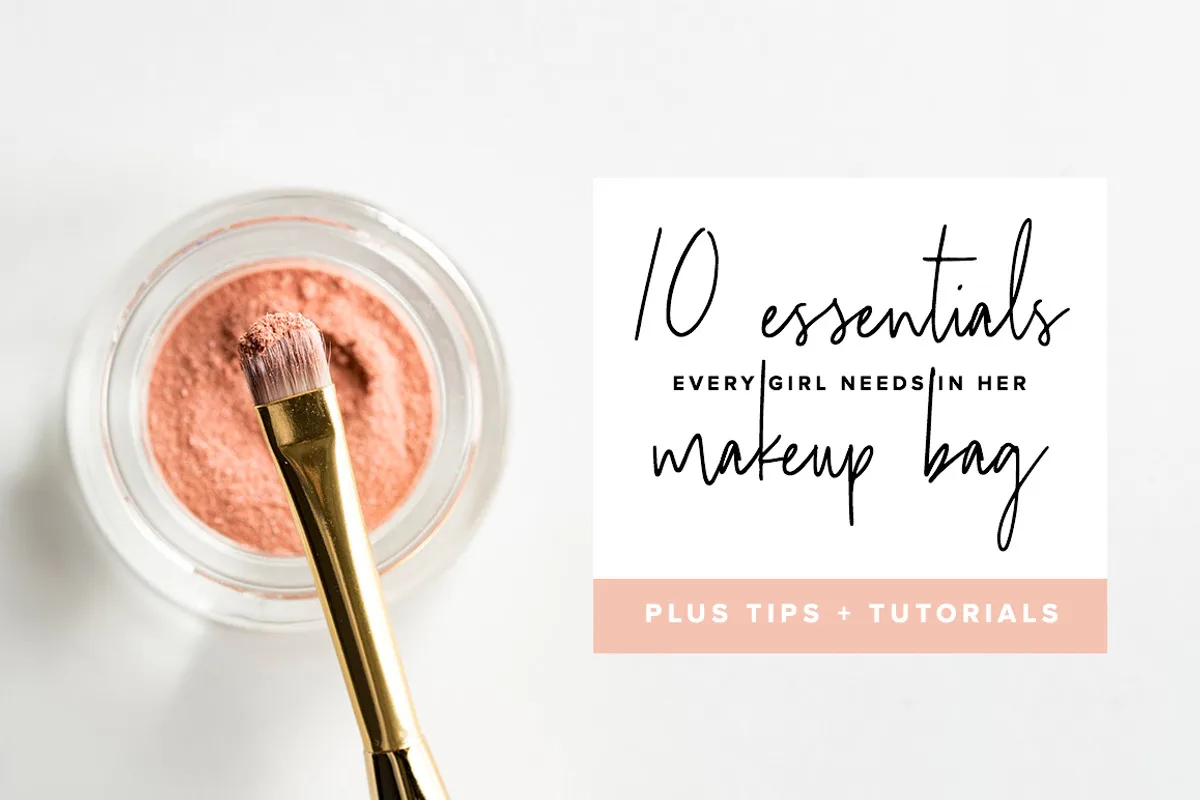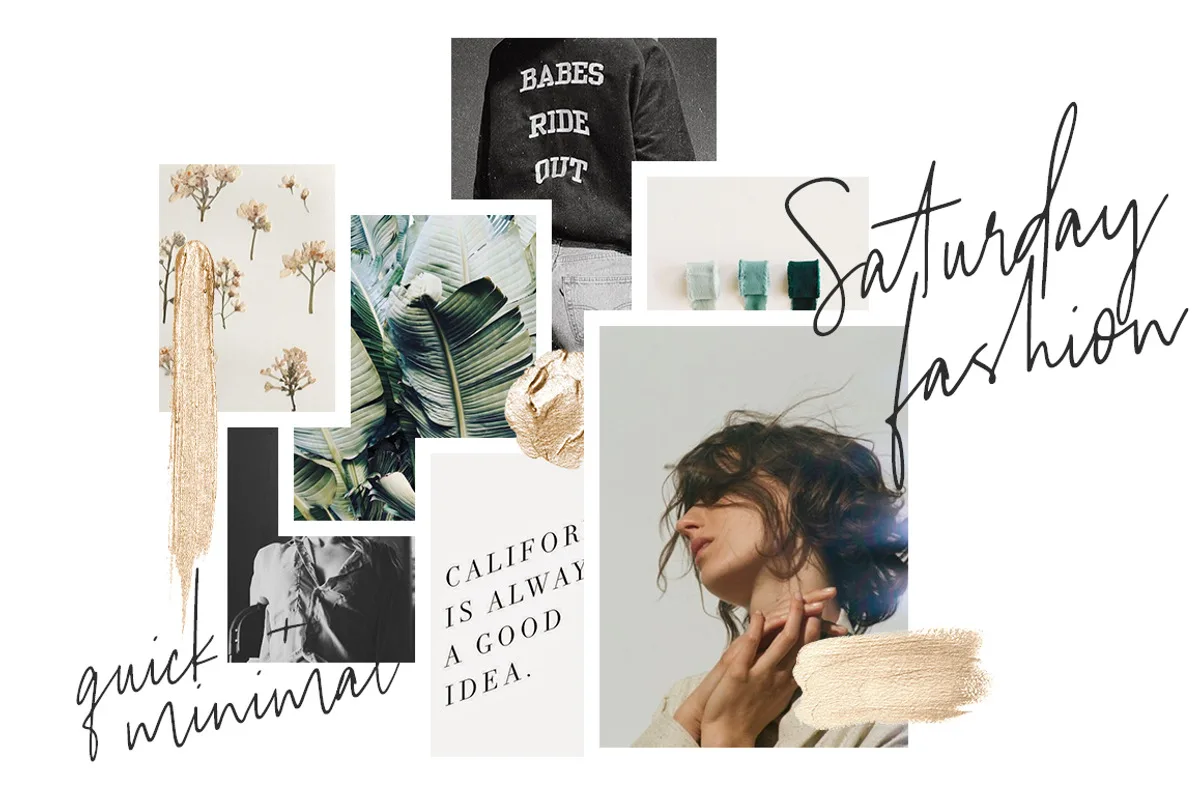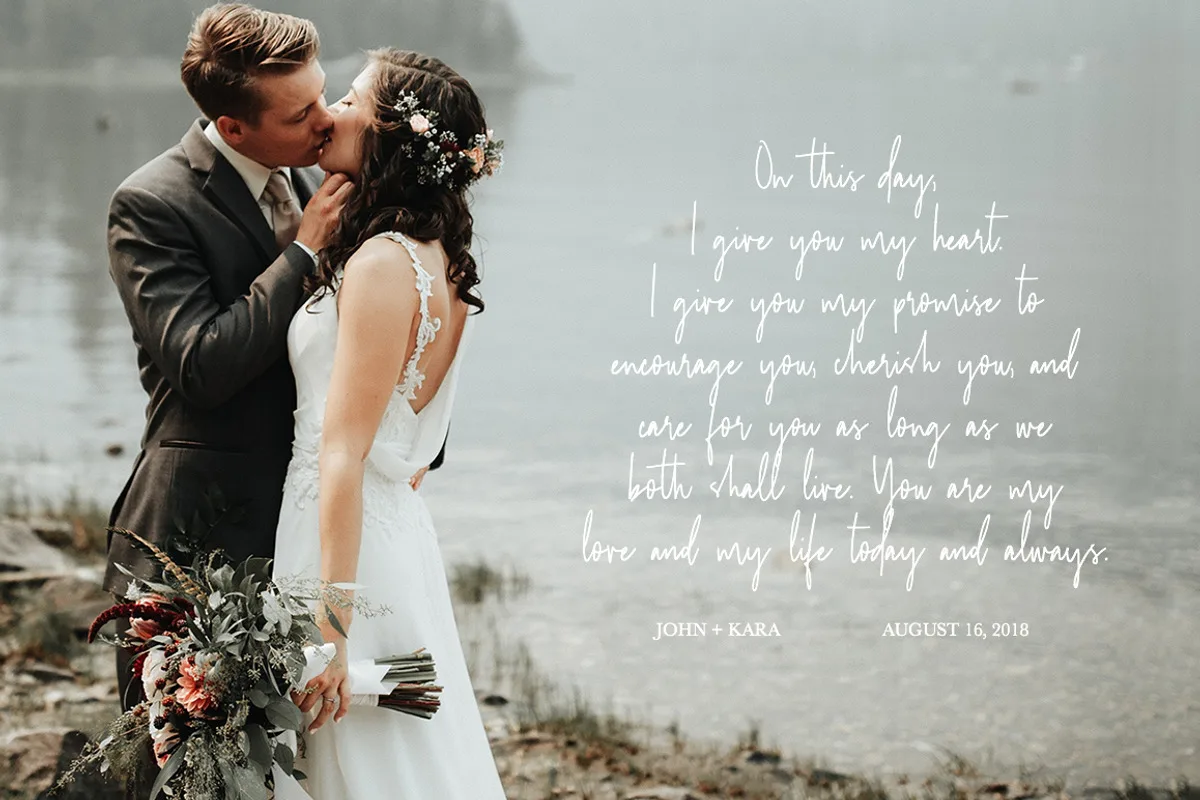
Adelaide is a fashionable and sweet handwritten typeface that is perfect for moodboards, logos, blog posts, invitations, and so much more! It looks beautiful when used for handwritten quotes and logos, and can even be used to make fun products like mugs or t-shirts.
With 47 ligatures and alternates for each letter, Adelaide looks completely hand-written and flows beautifully from word to word!